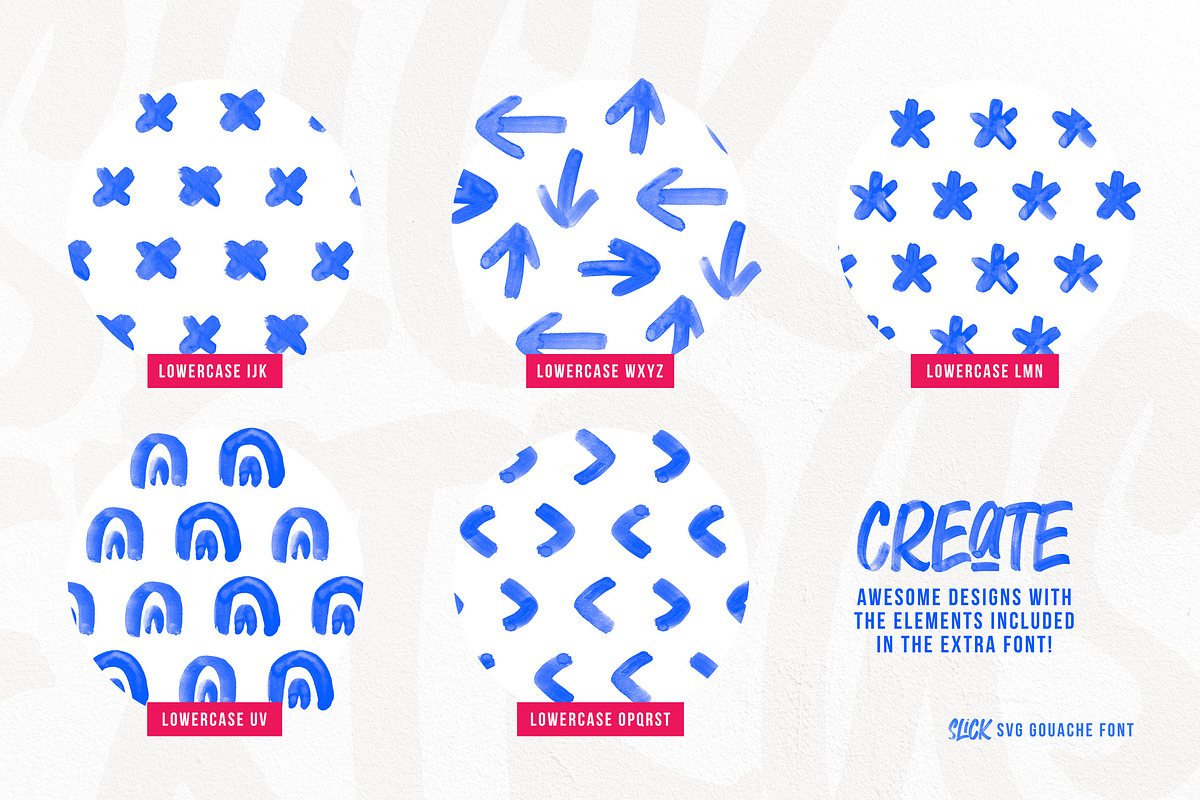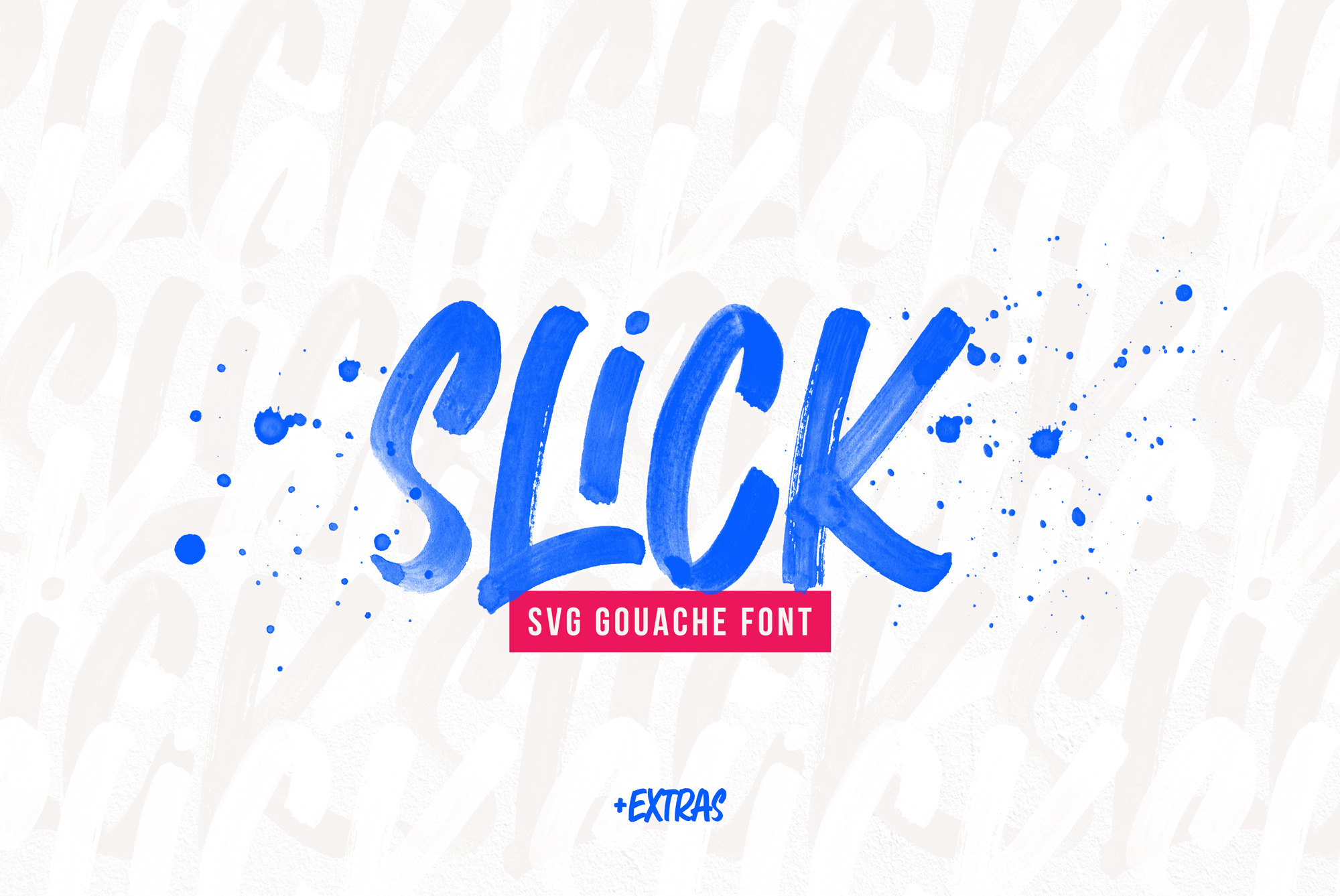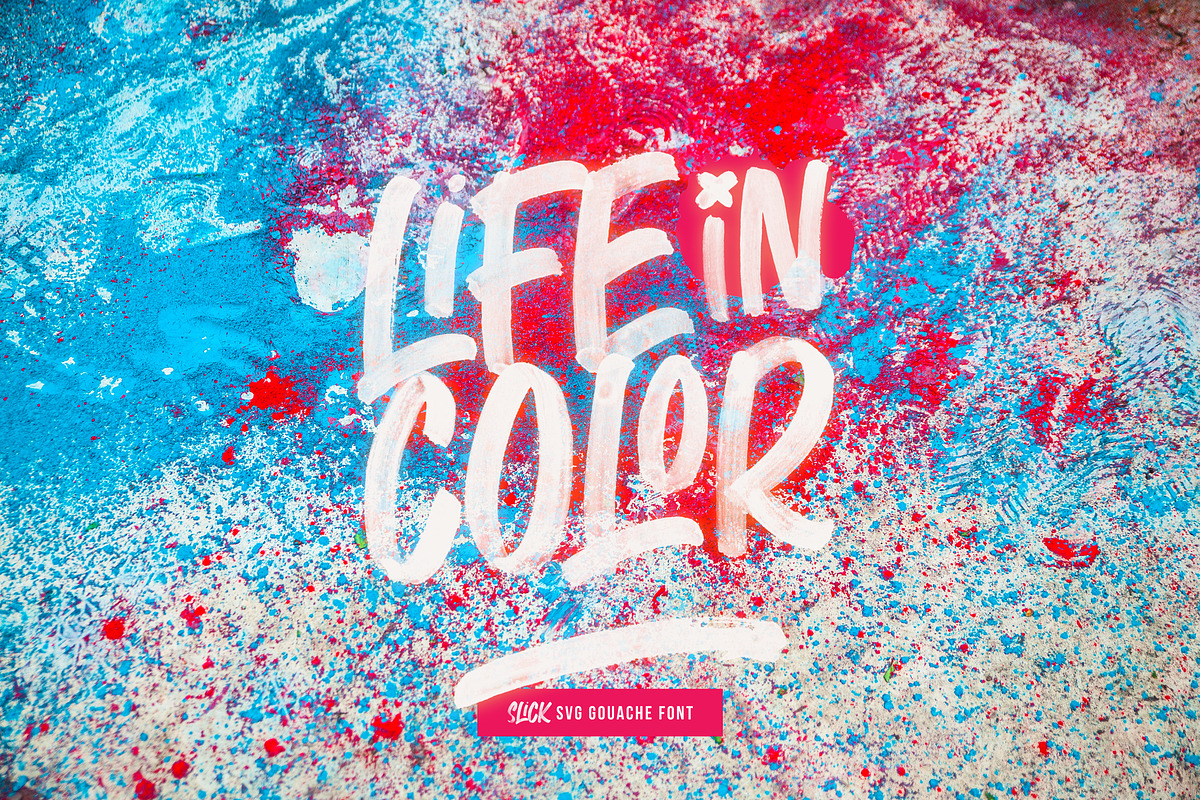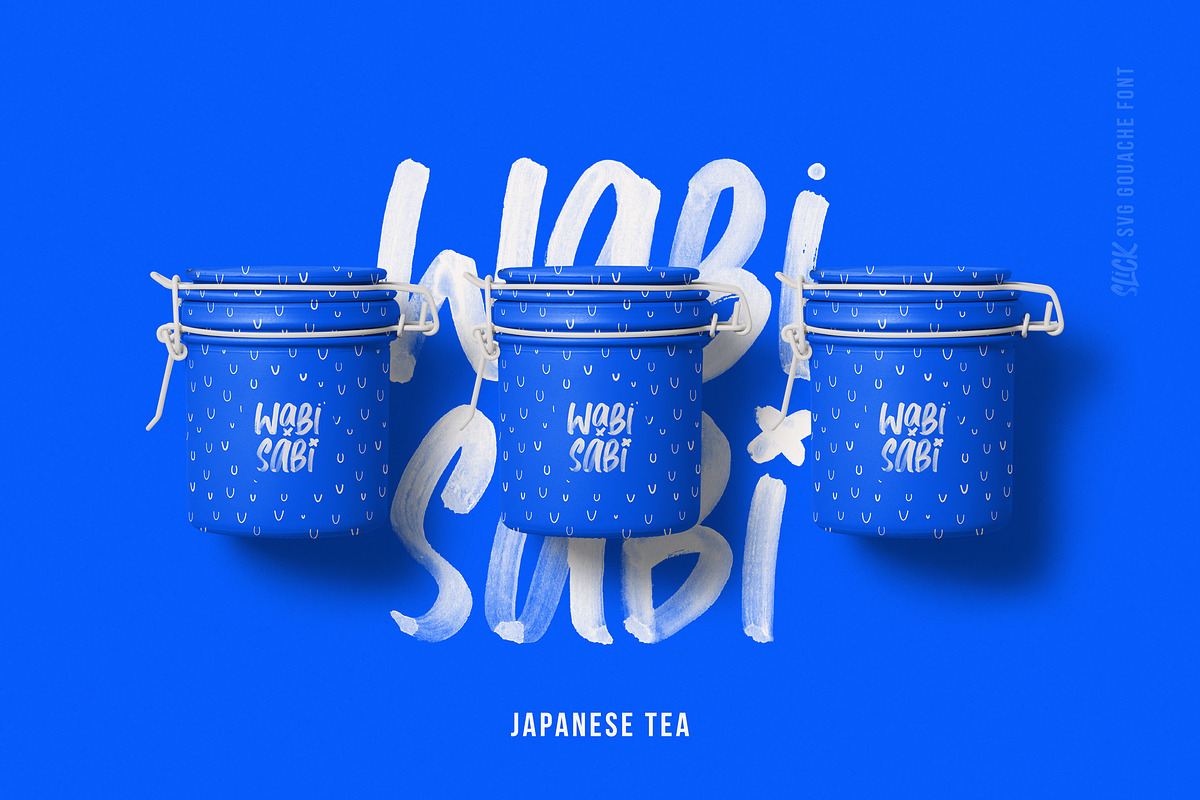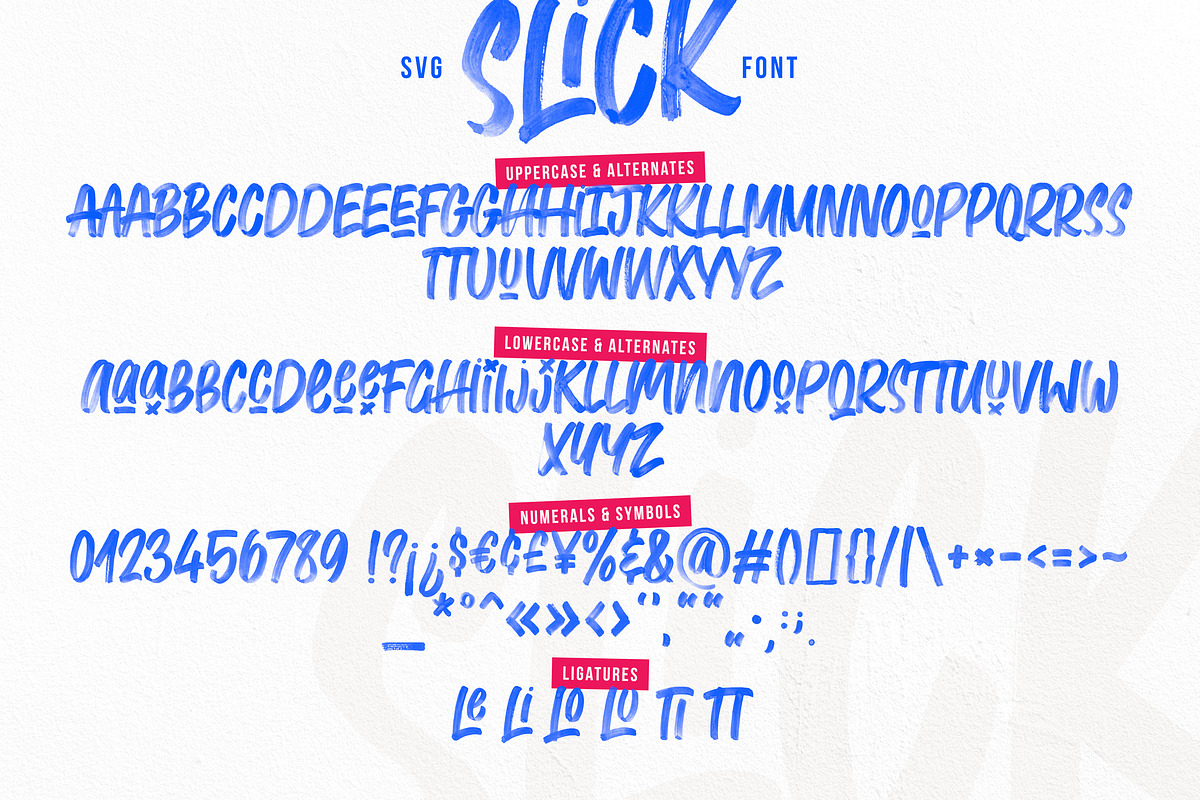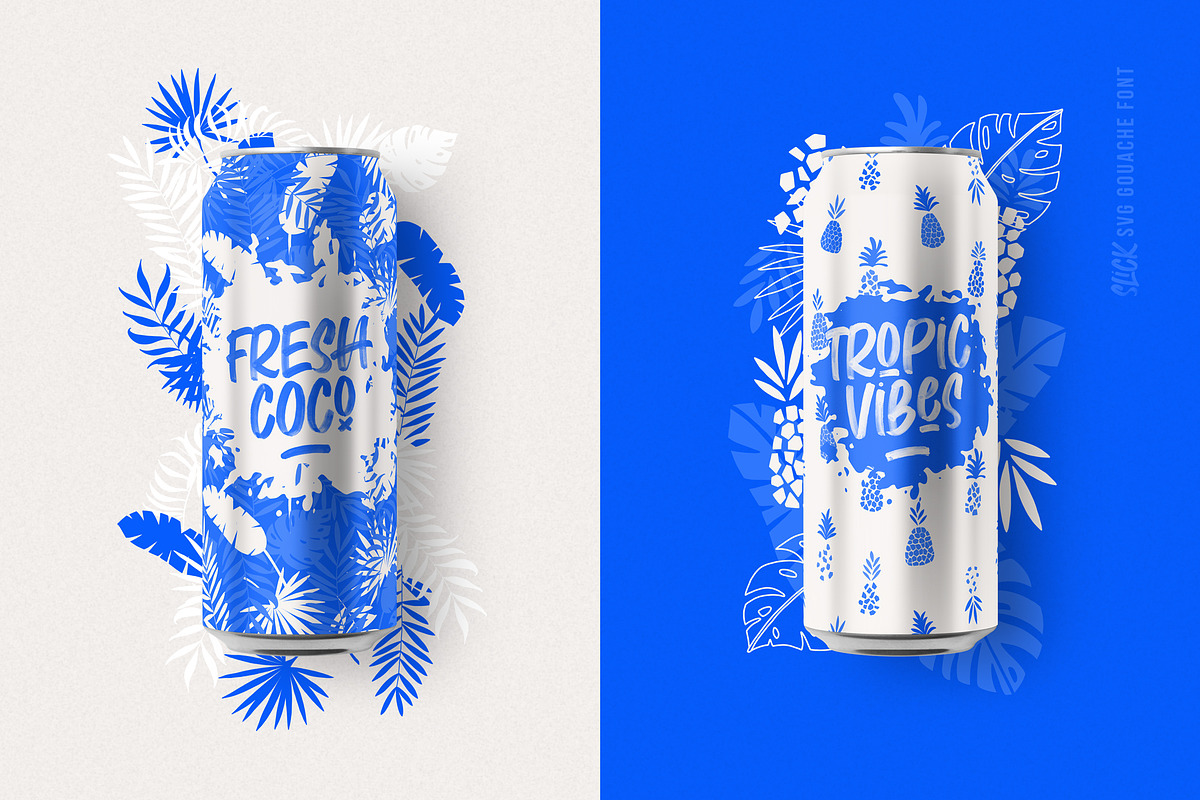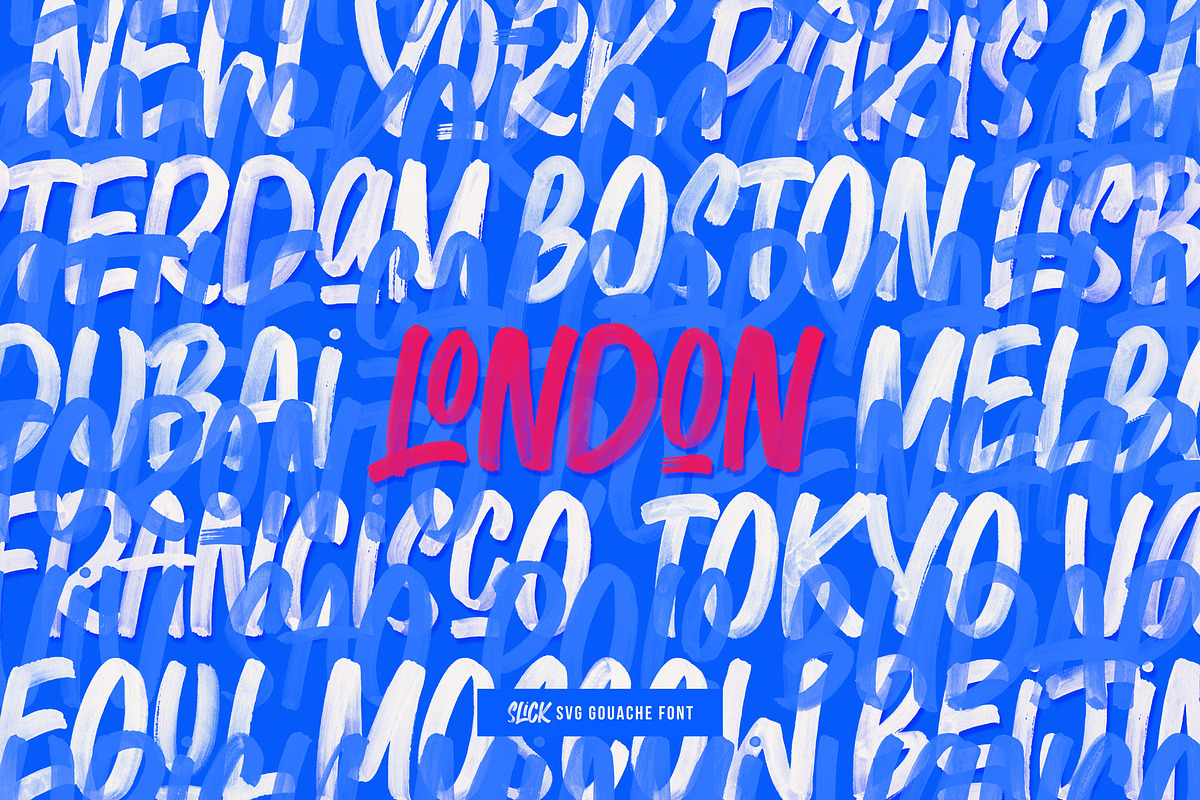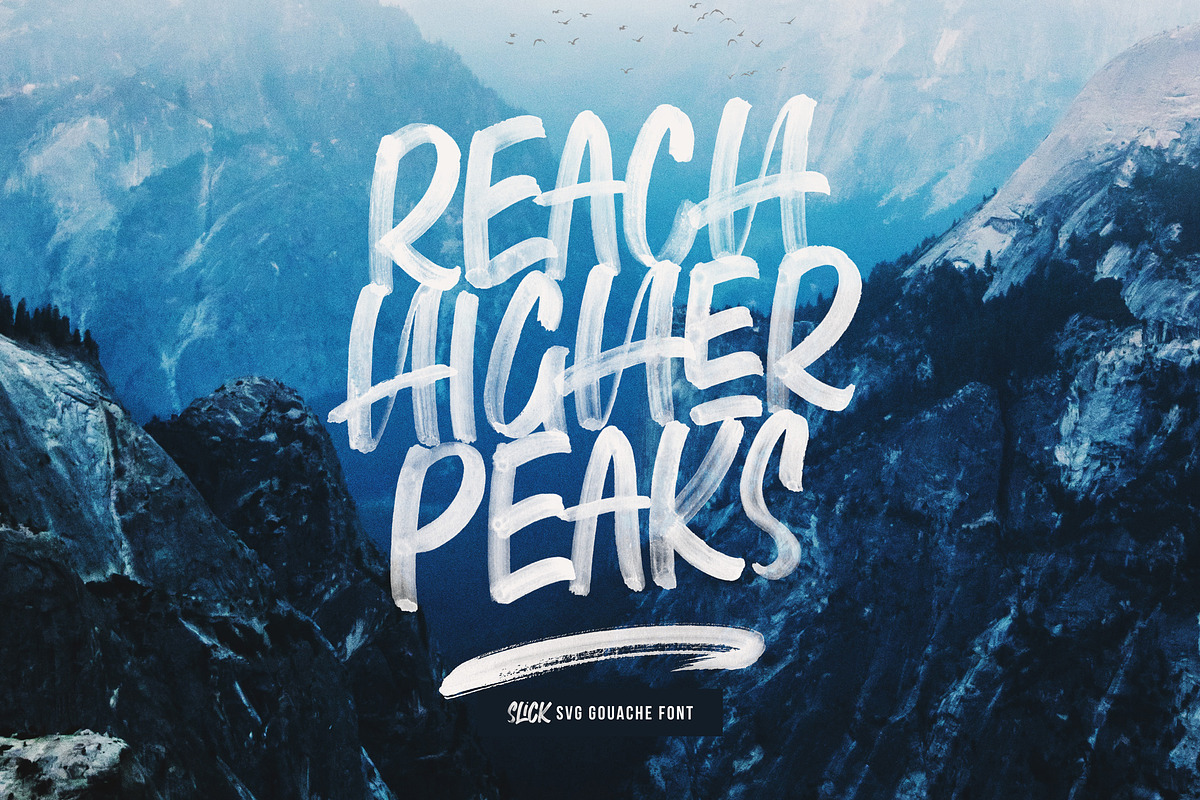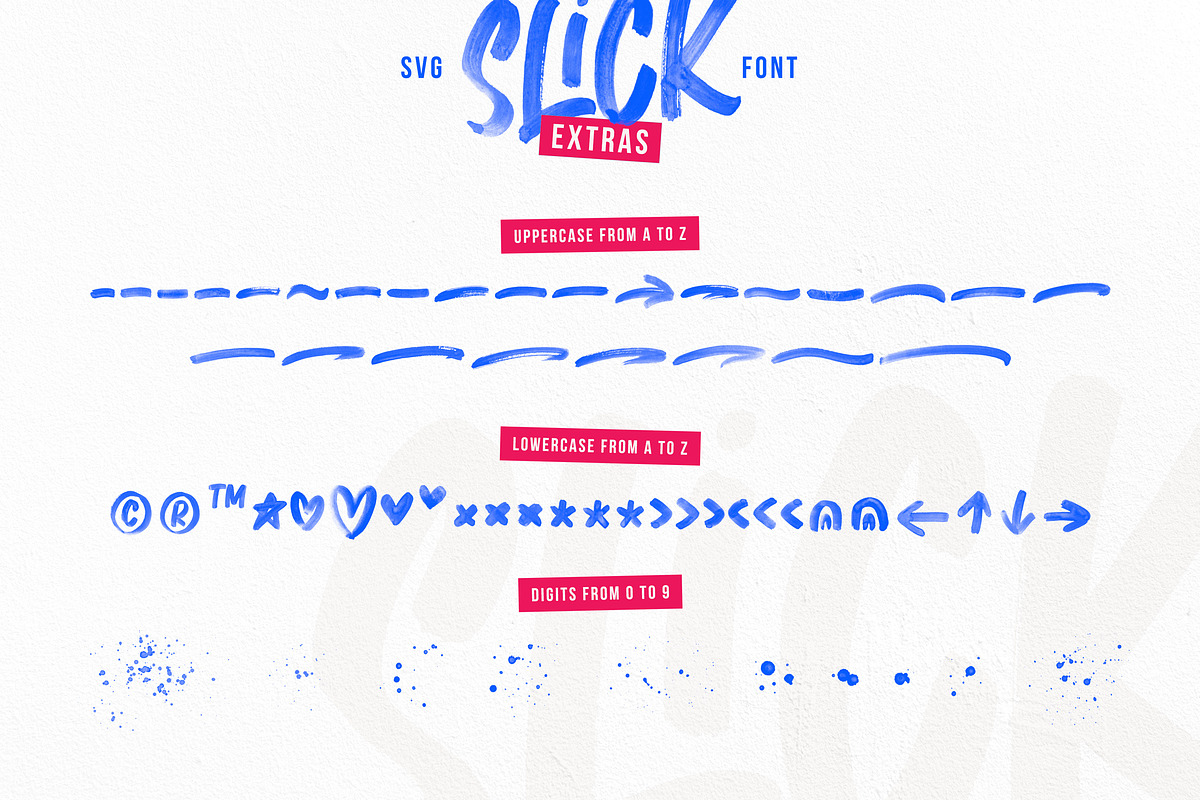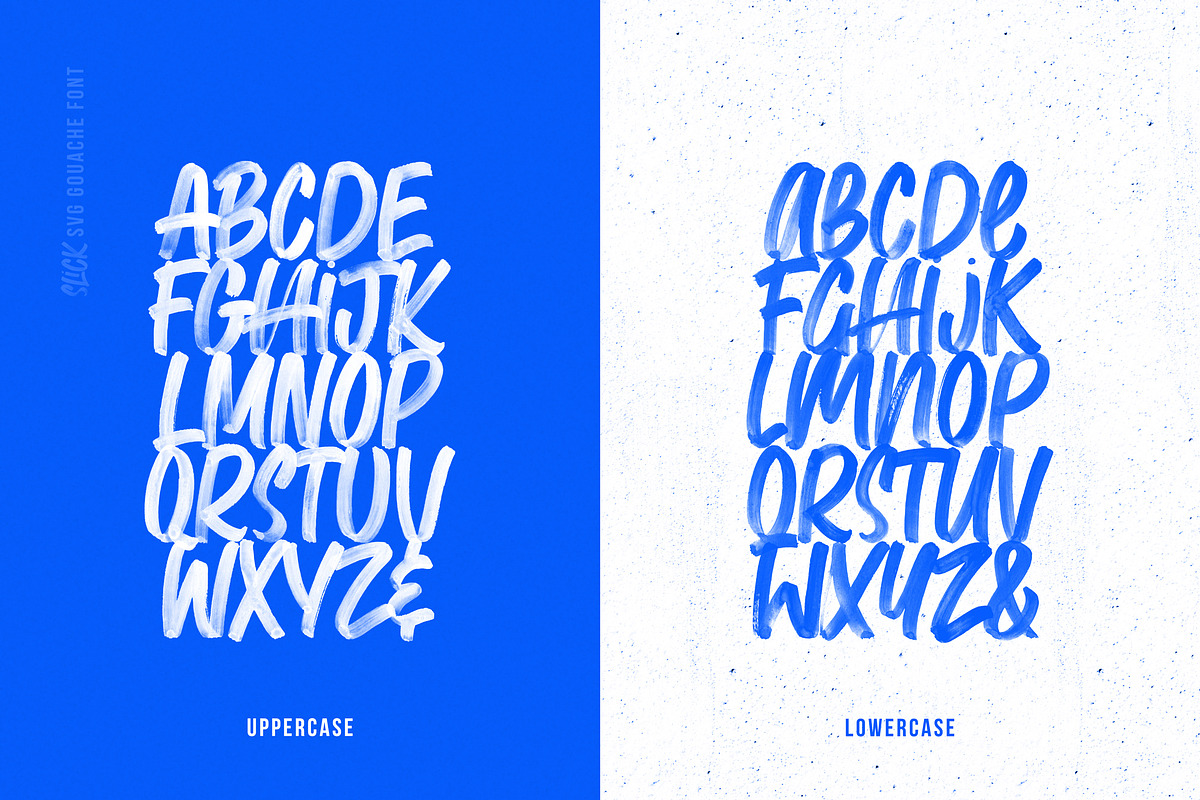
Slick SVG Brush Font + Extras
Get summer ready with the Slick Font Collection.
Introducing Slick that new svg paintbrush font with high gouache texture details and transparency built-in.
Slick is bold, tightly spaced, and retains all of the brush imperfections. It has a nice contrast with opaque parts and transparent ones. It will give your work an authentic and realistic paintbrush look!
It is the ultimate font for a new fresh branding look and create eye-catching designs for advertisements, social media posts, product packaging, fashion apparel, posters & more.
And more Slick comes with an extra font full of swashes, doodles and splatters that you can use to compliment your text.
Slick is an all caps font with a full uppercase and lowercase set to avoid duplicated letters. In addition you have a lot of alternates and ligatures to maintain the handmade look.
Slick SVG & Slick Extras SVG • High gouache texture details paintbrush with transparency built-in. Each glyphs is about 900 pixels in height.
Slick Solid & Slick Extra Solid • A Standard vector font of the Brush SVG Script font - maintianing a vector brush edge but with a solid fill.
Ligatures:
Ligatures are inserted automatically as you type if you activated the ligatures option in your Opentype panel. As it's an all caps font the ligatures are the same for both uppercase and lowercase. However due to limitations in the font file size, the SVG version only includes ligatures for the uppercase set.